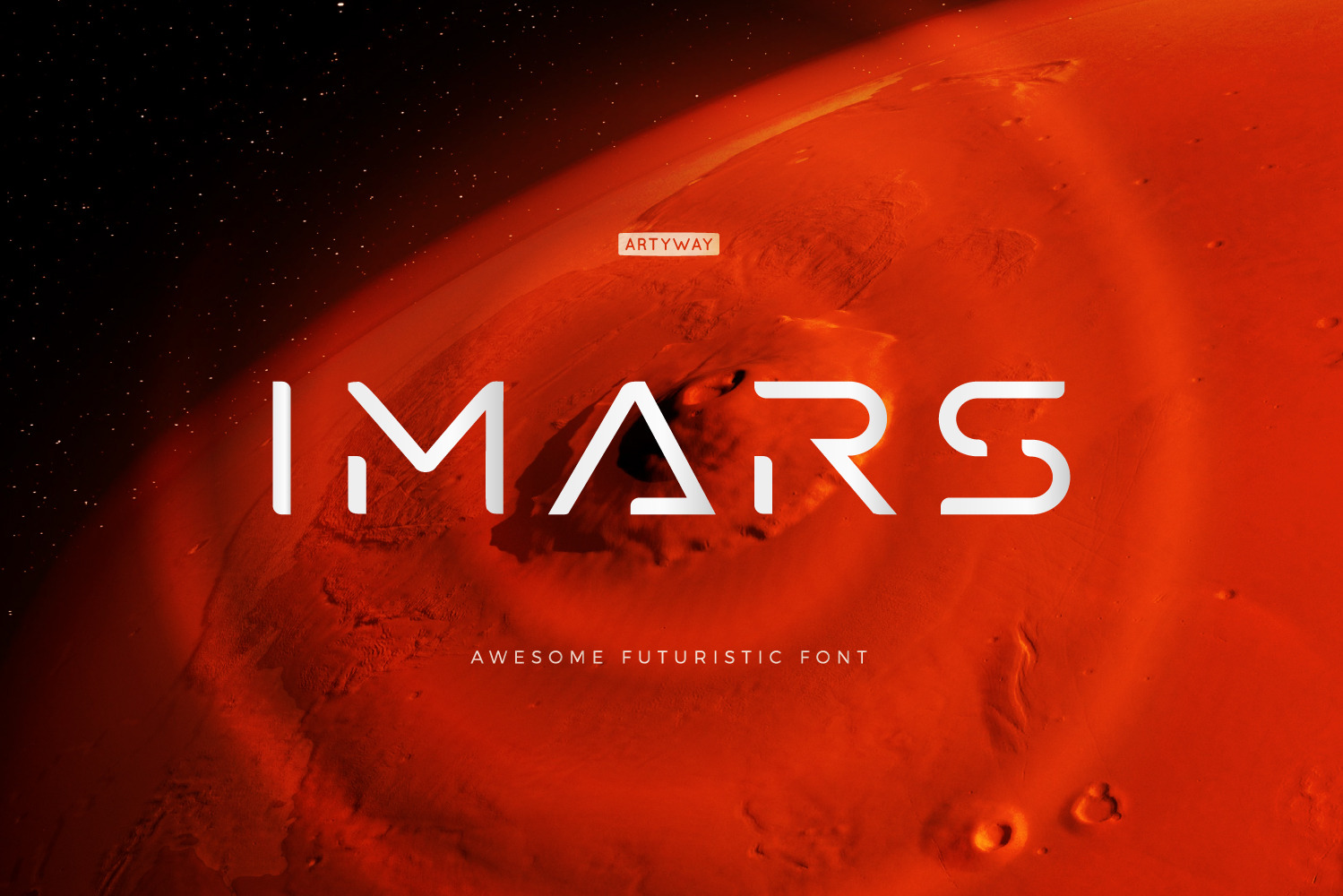
IMars Logo Font
Introducing the Mars Alphabet - the future of typography is here!
This sleek and modern font is the perfect addition to your design arsenal. Its clean lines and minimalist elegance make it ideal for contemporary, sci-fi, and space-themed designs. But that's not all - the versatility of the Mars Alphabet also makes it the perfect choice for branding, adventure, and music projects.
With its cutting-edge design, this font will bring your projects to the next level. Whether you're creating a stunning sci-fi movie poster or a sleek and stylish brand identity, the Mars Alphabet has you covered.
So why wait? Get creative and try different styles and kerning combinations to find the perfect look for your project. Embrace the future of typography with the Mars Alphabet today!
Try different styles and experiment with kerning for best results.